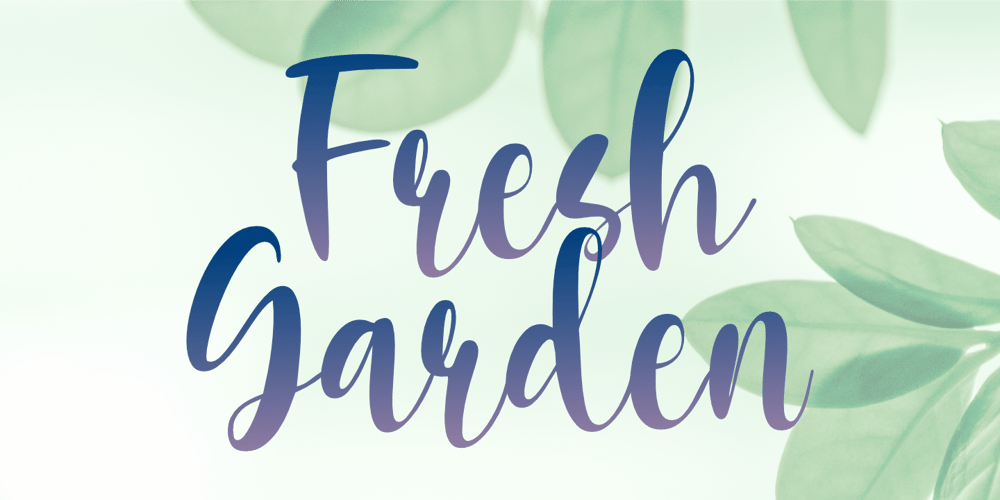
Fresh Garden Font Family was designed by Aldy Sidik and published by Epiclinez. Fresh Garden contains 1 styles and family package options. Fresh Garden is an elegant, cursive font. It’s a great fit for any project you have in mind! Use it as your wedding invitation text or to create a logo design with a feminine touch. Whether you’re taking on a fun project or tackling something serious the script font will always please and soothe your senses.So what’s included : Basic Latin Uppercase and Lowercase Numbers, symbols, and punctuations Ligatures Multilingual Support. Simple Installations Works on PC & Mac